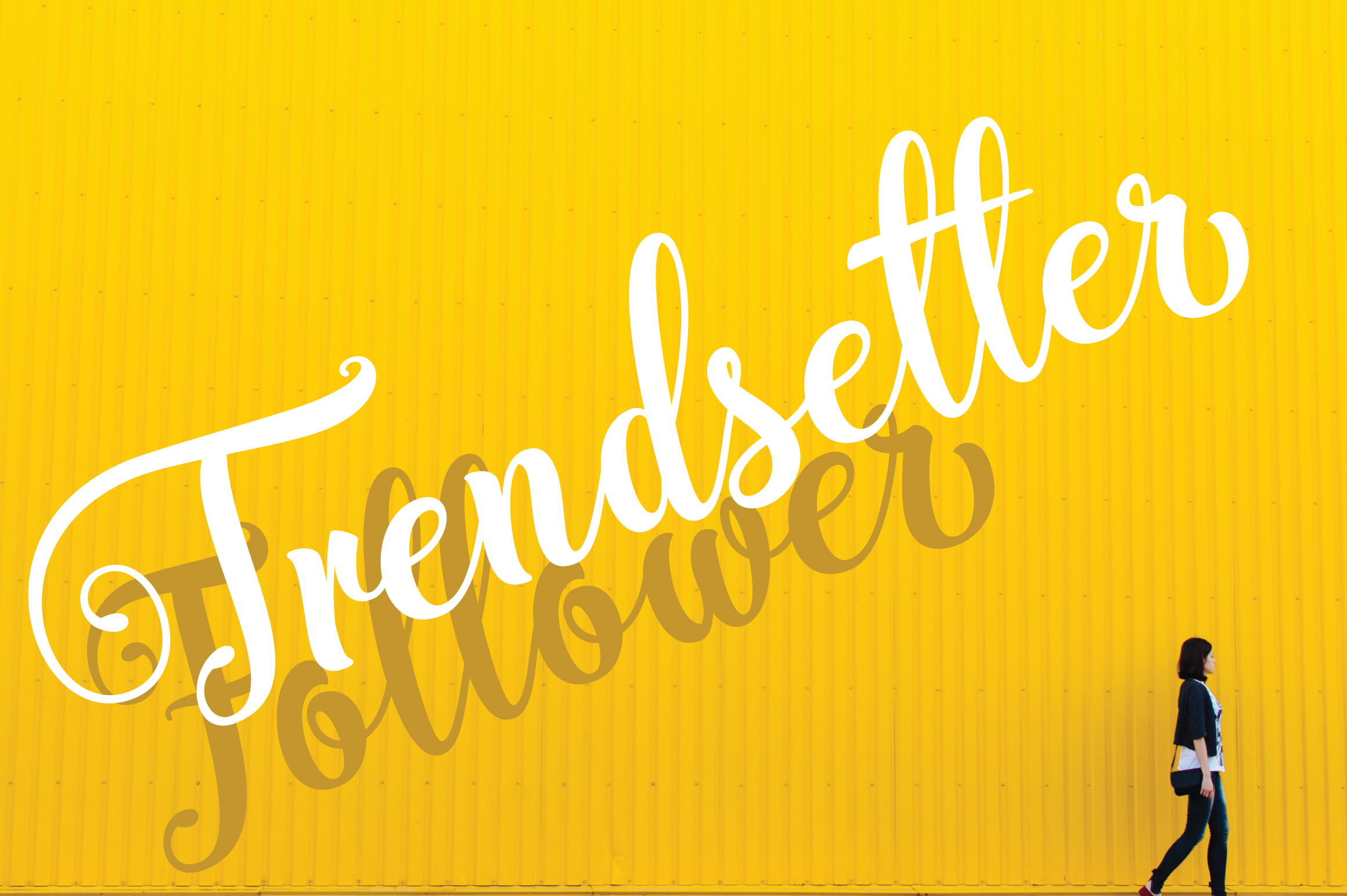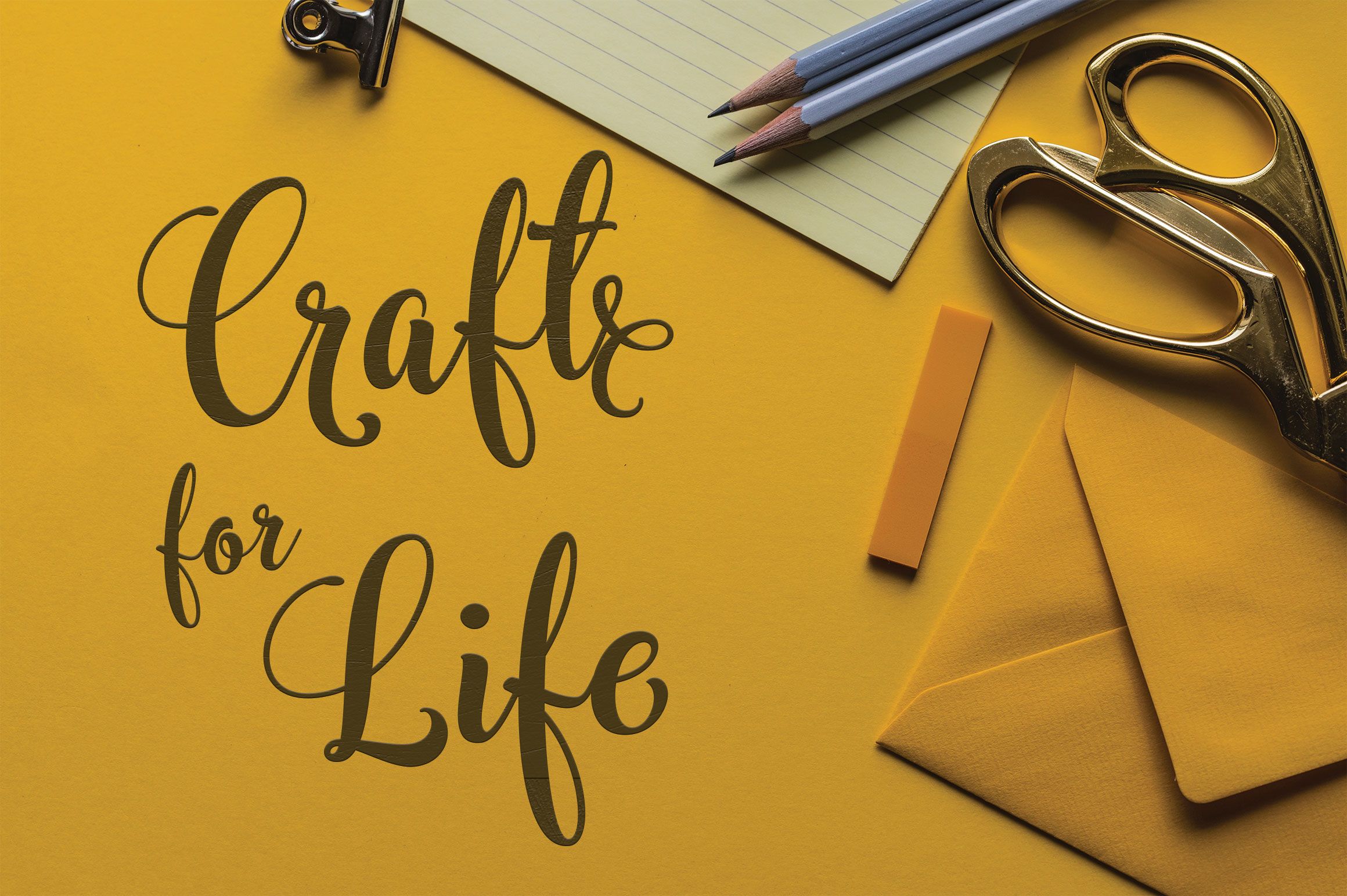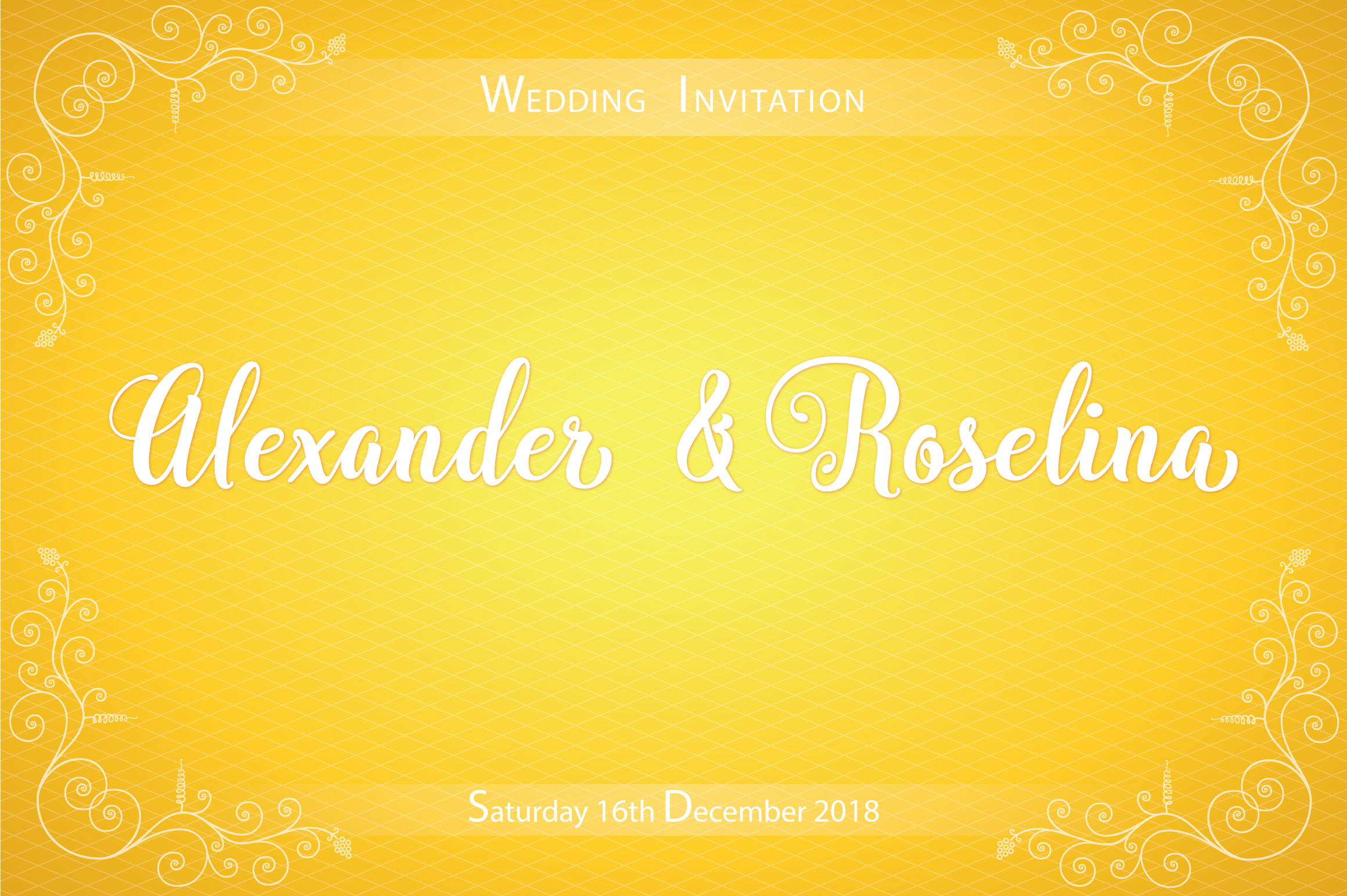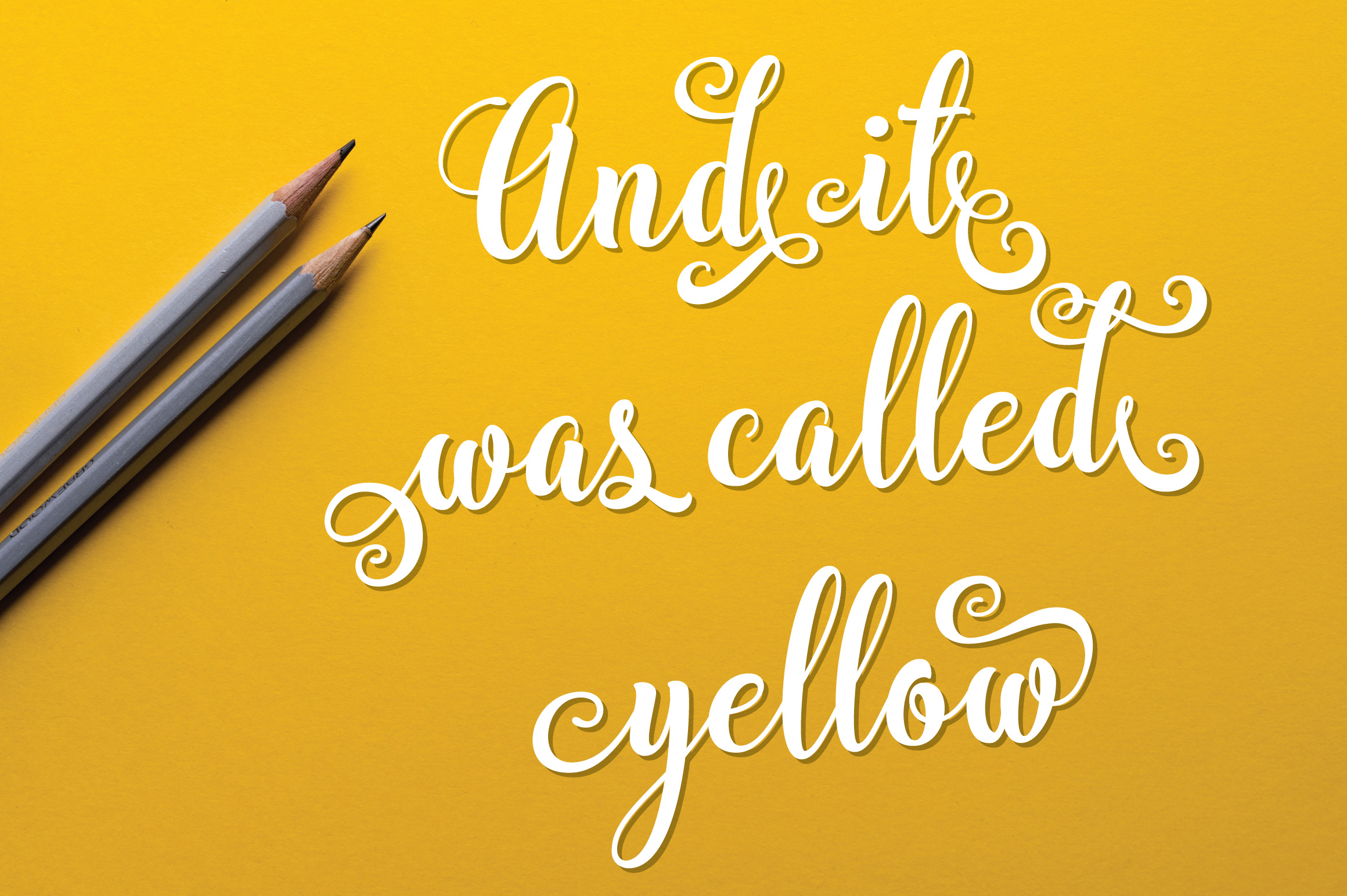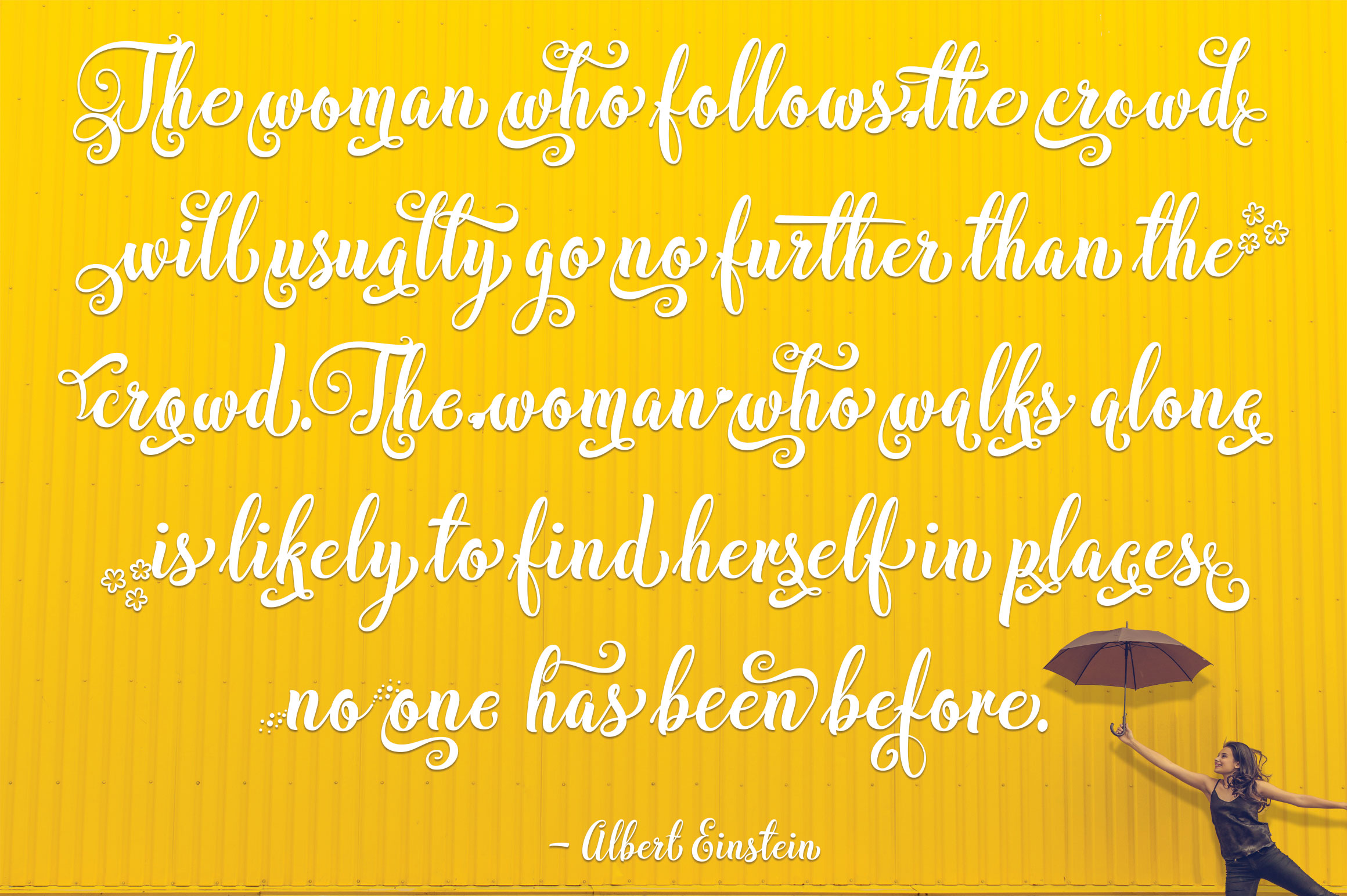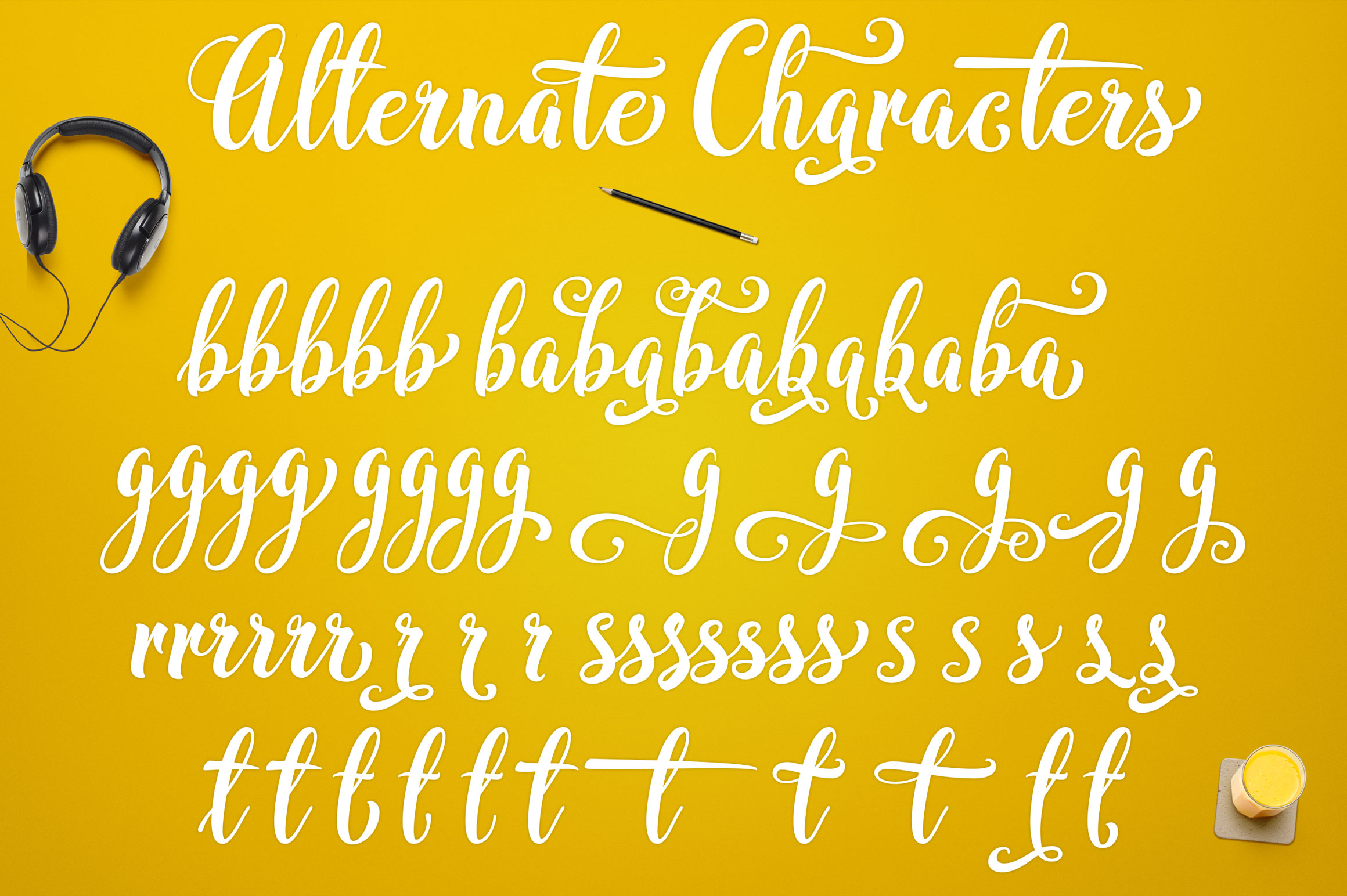
Bargain Script Font: Elevate Your Designs with a Beautiful and Bold Script
The Bargain Script font is a stunning addition to any designer’s toolkit. With its semibold weight and clean shape, this beautiful script font is perfect for creating eye-catching title treatments, elegant invitationals, and more. In this article, we’ll explore the features and benefits of the Bargain Script font, and how you can use it to take your designs to the next level.
A Beautiful and Bold Script Font
The Bargain Script font is a gorgeous example of a bold script font. Its semibold weight gives it a confident and assertive presence, while its clean shape ensures that it remains highly legible, even at smaller sizes. This makes it an excellent choice for designers who want to create a strong visual impact without sacrificing readability.
One of the standout features of the Bargain Script font is its elegant, cursive style. The font’s flowing lines and curves create a sense of movement and fluidity, making it perfect for designs that require a touch of sophistication and glamour. Whether you’re creating a wedding invitation, a movie poster, or a product label, the Bargain Script font is sure to add a touch of class and refinement.
Perfect for Title Treatments and Invitationals
The Bargain Script font is particularly well-suited for title treatments and invitationals. Its bold weight and elegant style make it an excellent choice for creating eye-catching headlines and titles, while its clean shape ensures that it remains easy to read, even at smaller sizes.
For invitationals, the Bargain Script font is a great choice for creating beautiful and elegant designs. Whether you’re designing a wedding invitation, a birthday party invitation, or a graduation announcement, this font is sure to add a touch of sophistication and refinement. Its flowing lines and curves create a sense of movement and fluidity, making it perfect for designs that require a touch of glamour and elegance.
More Than Just a Pretty Face
While the Bargain Script font is certainly a beautiful and elegant script font, it’s more than just a pretty face. Its semibold weight and clean shape make it a highly versatile font that can be used in a wide range of design applications.
For example, you can use the Bargain Script font to create stunning product labels, eye-catching posters, and beautiful packaging designs. Its bold weight and elegant style make it an excellent choice for creating designs that require a strong visual impact, while its clean shape ensures that it remains easy to read, even at smaller sizes.
Tips for Using the Bargain Script Font
If you’re new to using the Bargain Script font, here are a few tips to help you get started:
- Use it sparingly: While the Bargain Script font is certainly a beautiful and elegant script font, it can be overwhelming if used too much. Use it sparingly to create a strong visual impact, and pair it with simpler fonts to create a balanced design.
- Experiment with different sizes: The Bargain Script font looks great at a wide range of sizes, from small and delicate to large and bold. Experiment with different sizes to find the one that works best for your design.
- Pair it with complementary fonts: The Bargain Script font pairs well with a wide range of fonts, from simple sans-serif fonts to elegant serif fonts. Experiment with different font combinations to find the one that works best for your design.
| Font Name | Bargain Script Font |
| Author | Royaltype |
The Bargain Script font is a beautiful and bold script font that’s perfect for designers who want to create stunning title treatments, elegant invitationals, and more. Its semibold weight and clean shape make it a highly versatile font that can be used in a wide range of design applications, from product labels to packaging designs.